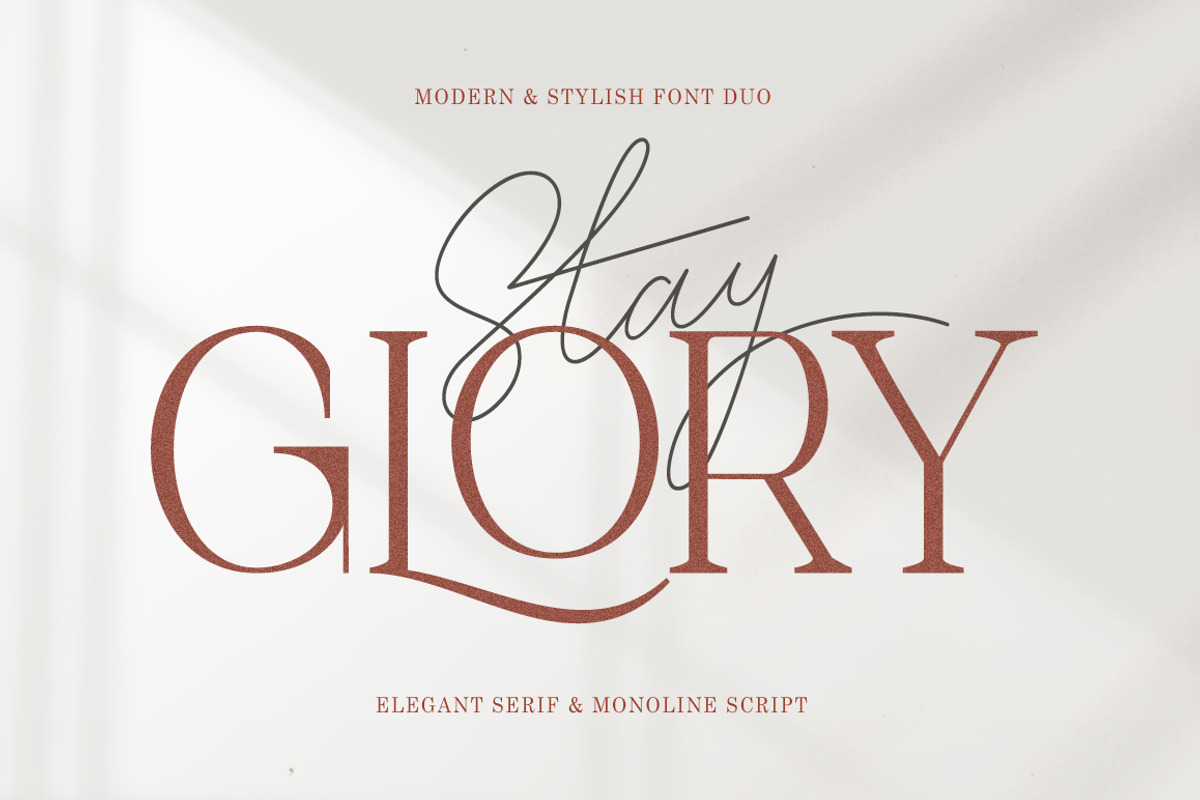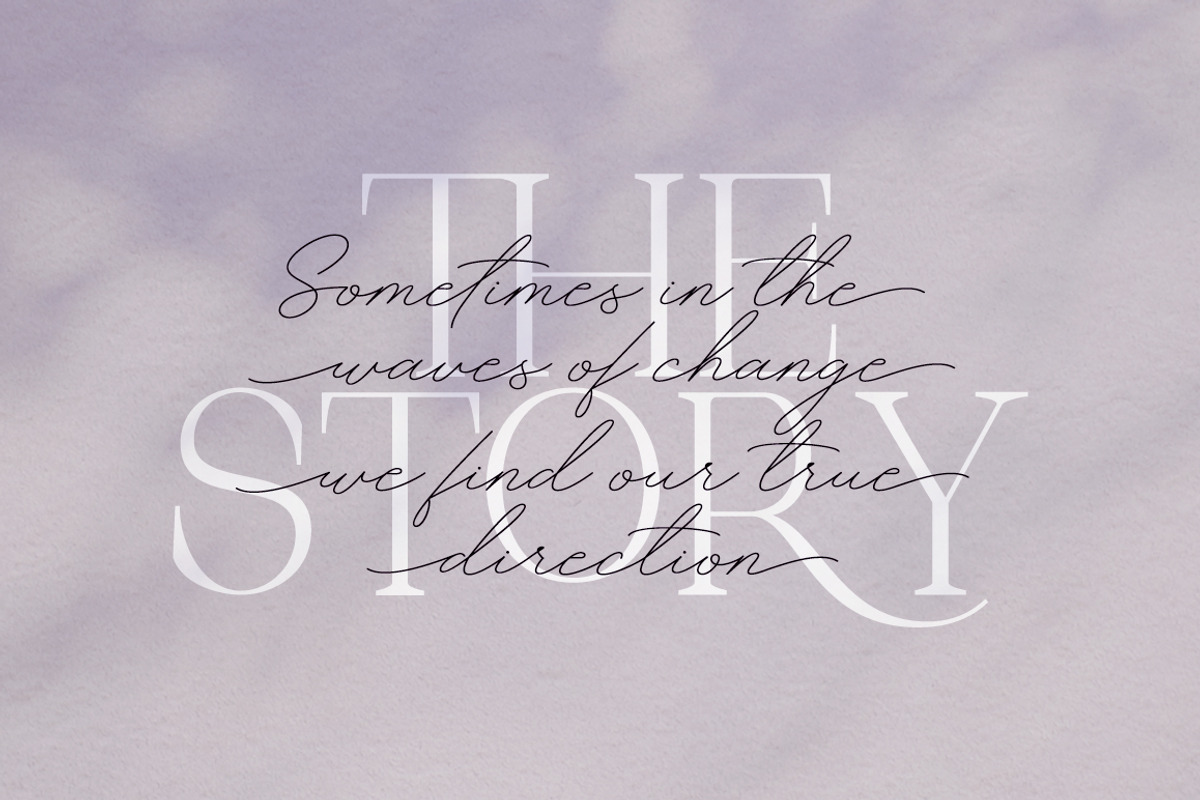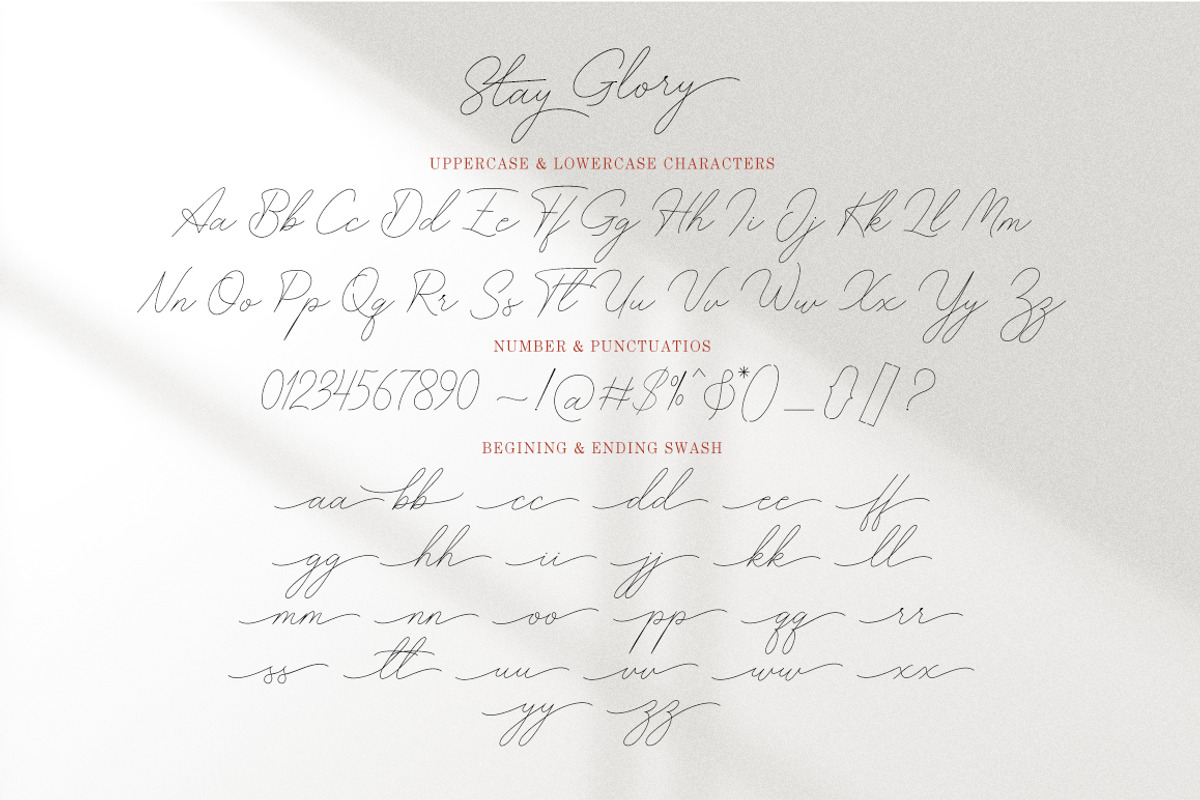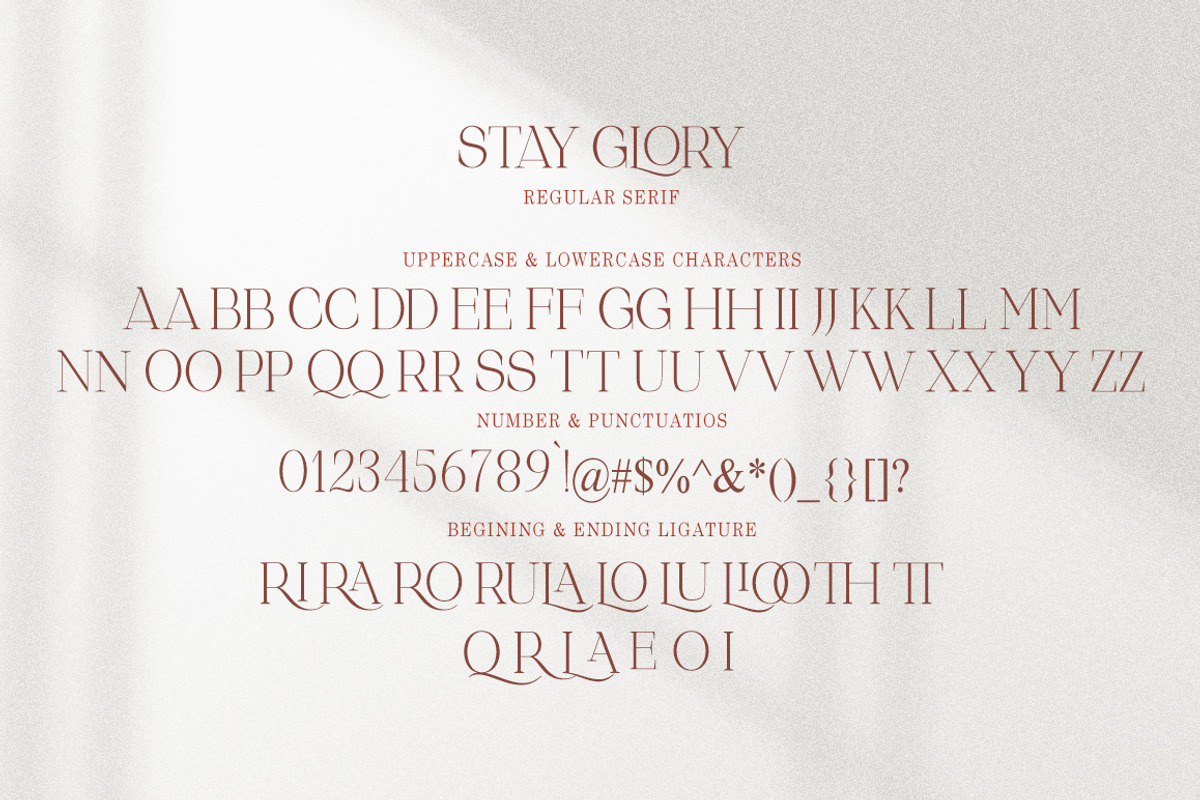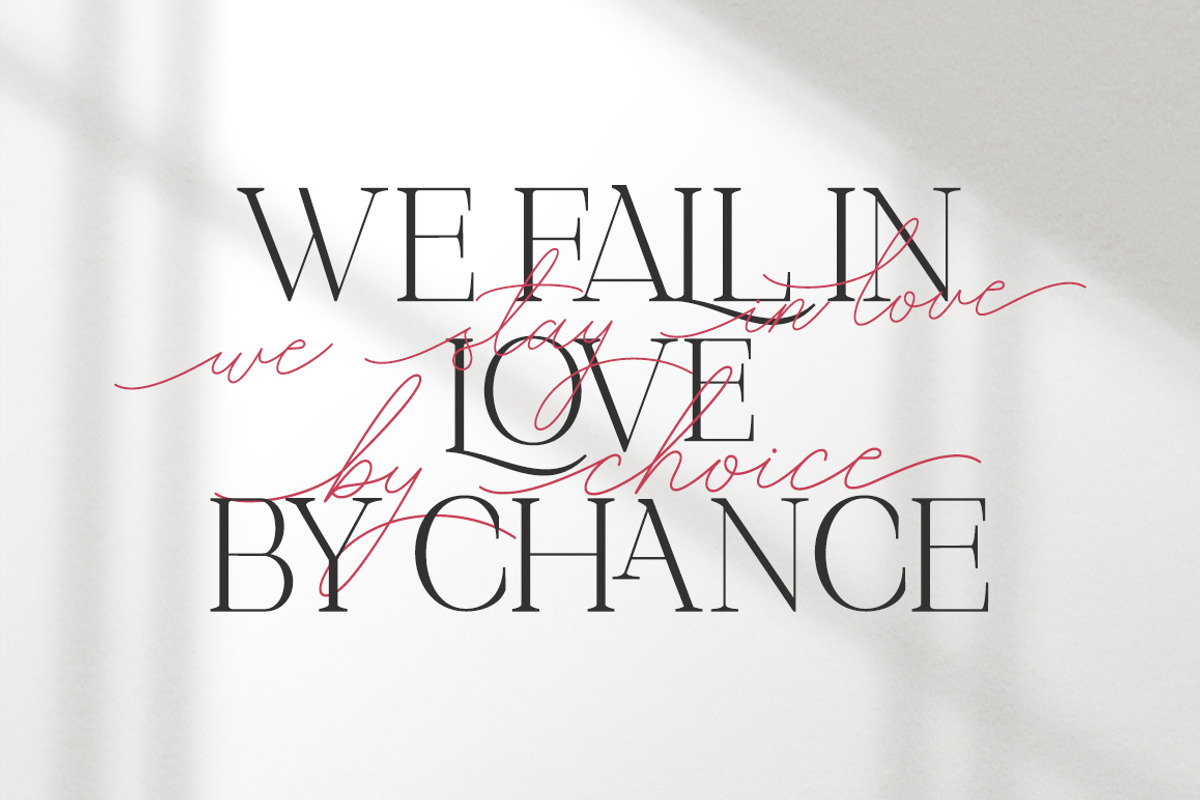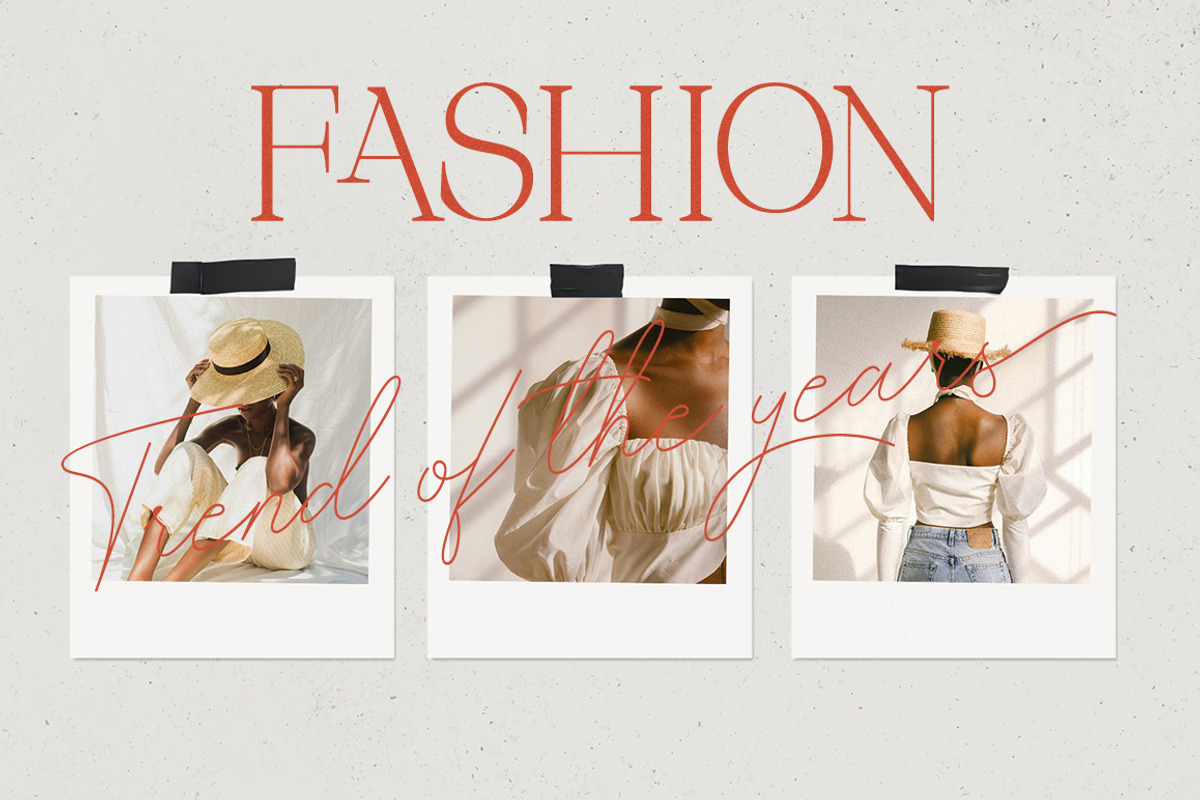
Stay Glory Font Duo
Stay Glory is a luxury font Duo. which comes with a combination of modern and elegant fonts, namely Serif and Monoline style. You can combine it to make beautiful typography. This hand display style makes it perfect for use in all your design projects be it logos, labels, packaging designs, blog titles, posters, wedding designs, social media posts, Instagram designs, card invitations, art quotes, home decor, book / cover titles , etc.
Already matched up and ready to be used together for your next design!
Stay Glory Script Regular / Serif • Thin and realistic signature fonts ligatures, lowercase letters, uppercase letters, all punctuation & numbers.
Language Support • Stay Glory supports the following languages; English, French, Italian, Spanish, Portuguese, German, Swedish, Norwegian, Danish, Dutch, Finnish, Indonesian, Malay, Hungarian, Polish, Croatian, Turkish, Romanian, Czech, Latvian, Lithuanian, Slovak, Slovenian.